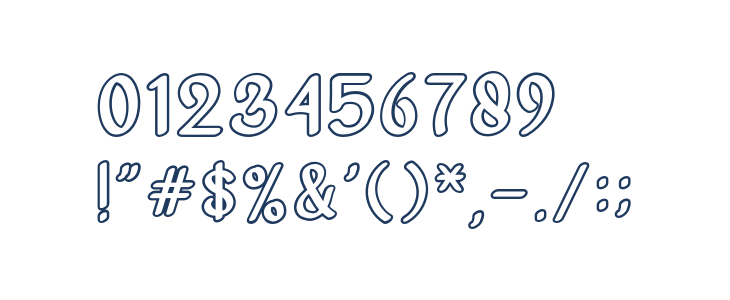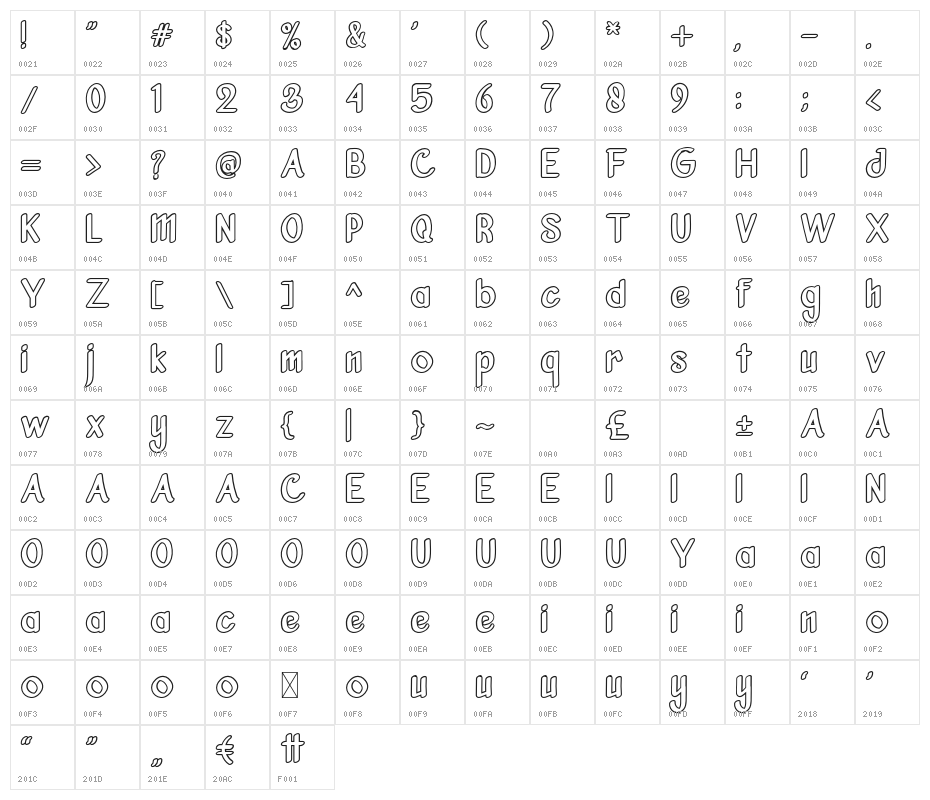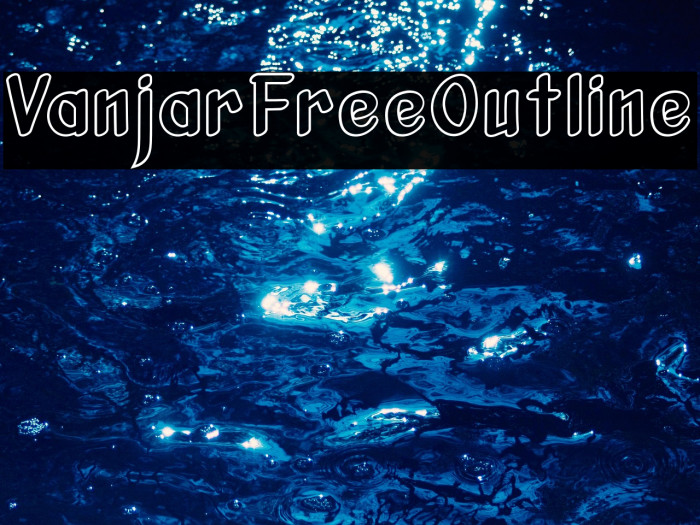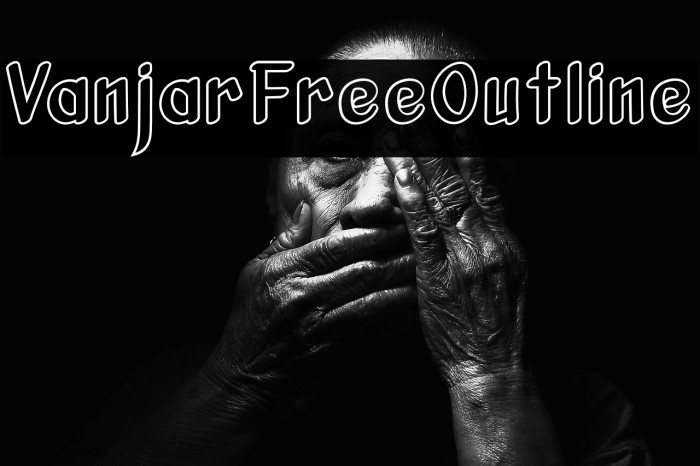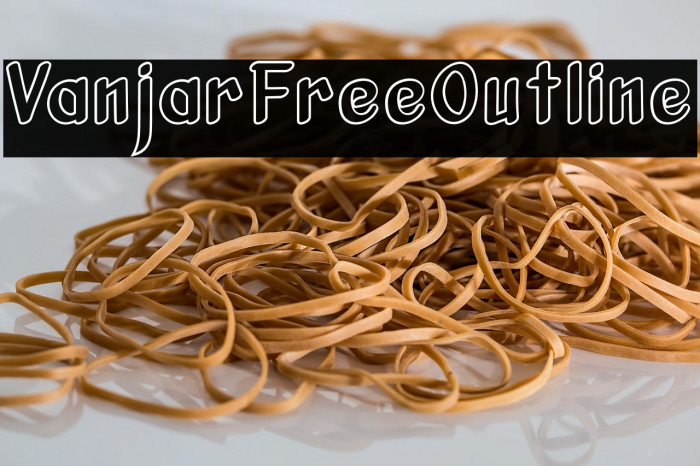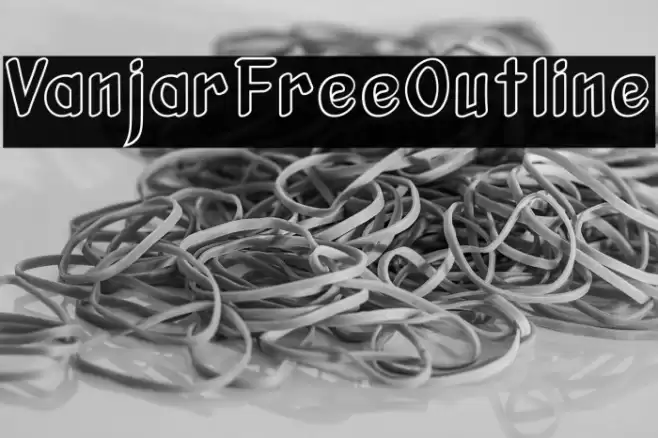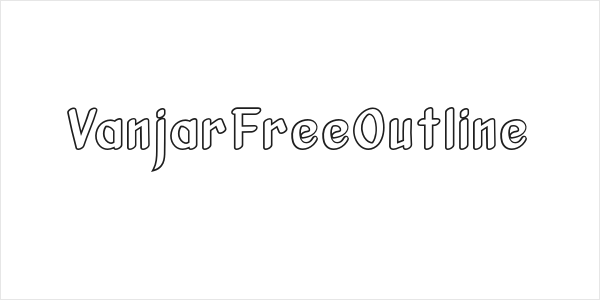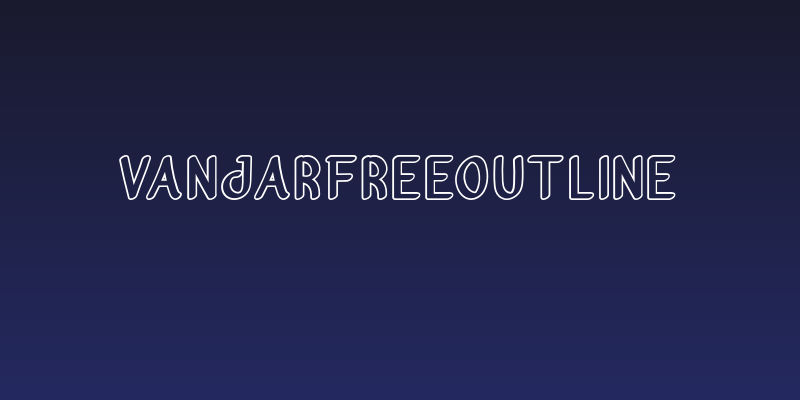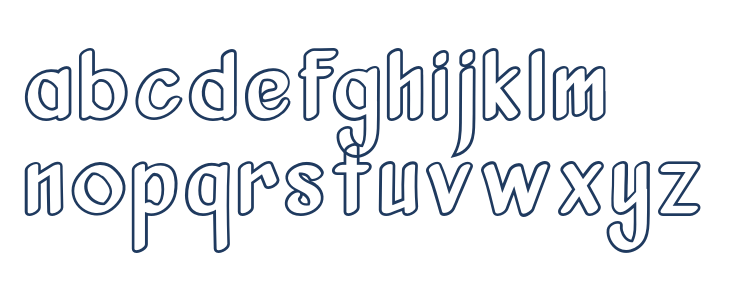
VanjarFreeOutline Font
VanjarFreeOutline Description
This font features a playful and modern outline style, characterized by its bold and rounded letterforms. The uppercase and lowercase letters maintain a consistent width, creating a harmonious look. The numbers and special characters follow the same design principles, ensuring uniformity across all glyphs. The font's outline nature gives it a light and airy feel, making it suitable for designs that require a touch of creativity and fun. Its clear and legible structure allows for easy readability, even in smaller sizes.
| Proposed Projects | Ideal for children's books, playful branding, posters, and creative digital content. |